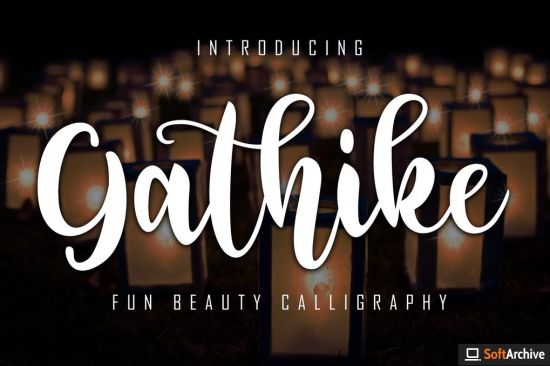
Gathike is a cute and beautiful calligraphic script font with full basic multilingual along with encoded PUA suitable for your marketing or trademark needs